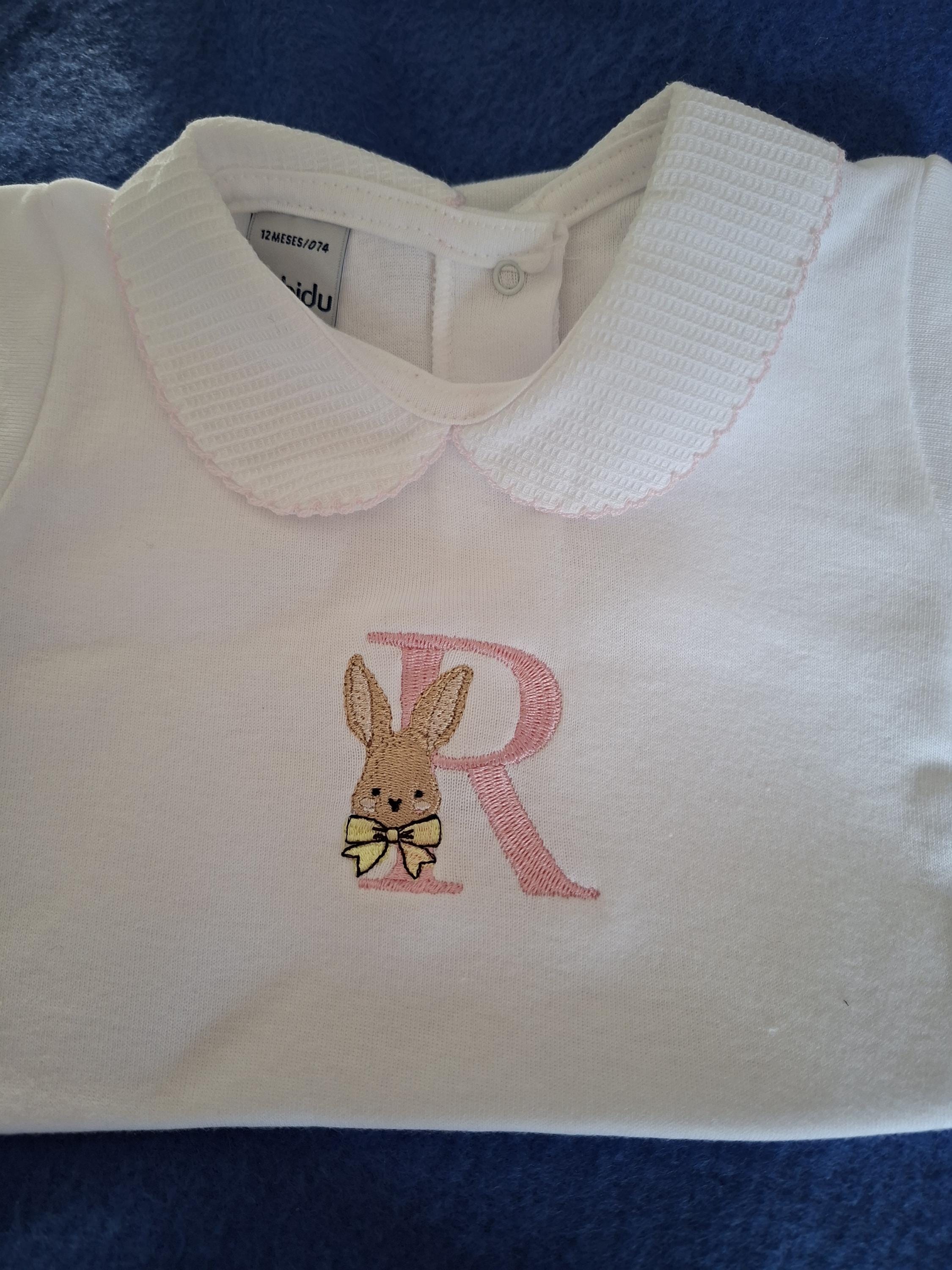
It never fails, the designs always embroider perfect. Very nice font.
I have this font in multiple sizes because it stitches out so well and is such a great font!
Looks good I was looking for more a satin stitch not a tatami stitch.